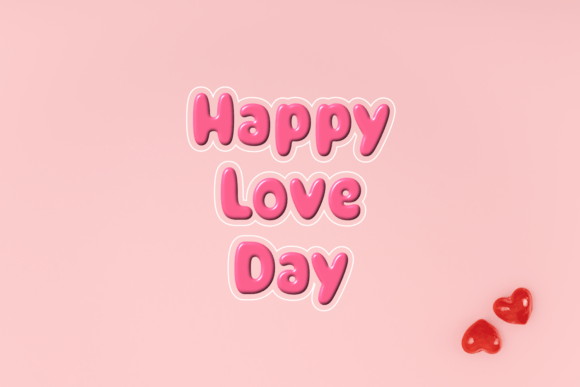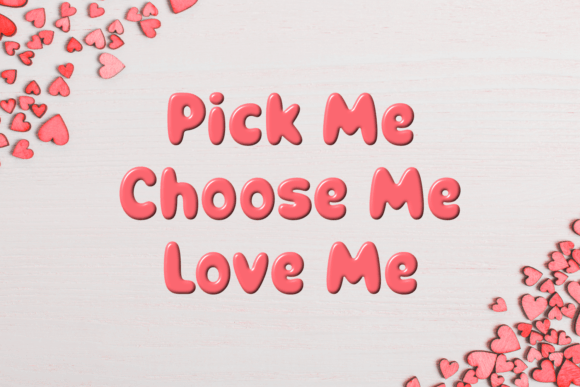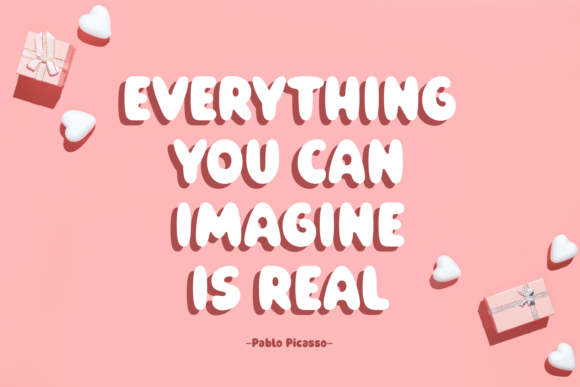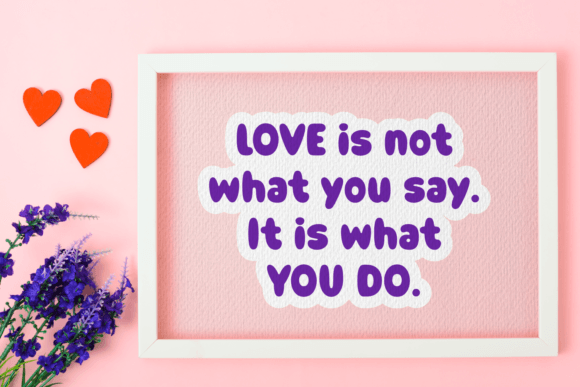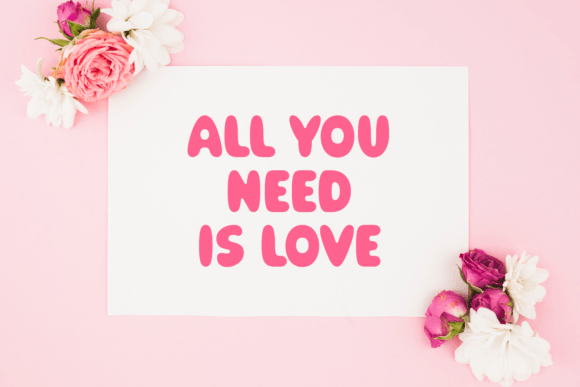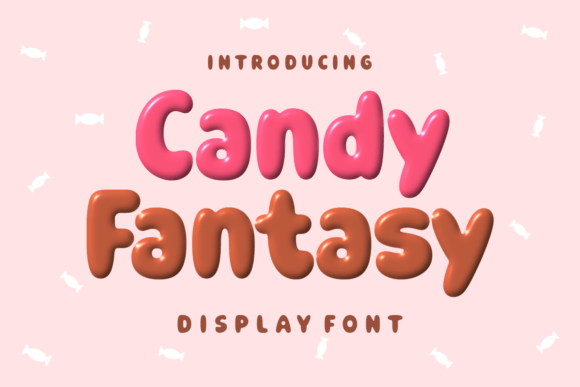
Candy Fantasy Font: Add a Sweet Touch to Your Designs
Are you looking for a font that can add a playful and charming touch to your designs? Look no further than the Candy Fantasy Font! This delightful display font is perfect for creating eye-catching headlines, invitations, and creative designs that are sure to capture the attention of your audience. In this article, we’ll take a closer look at the Candy Fantasy Font, its features, and how you can use it to add a sprinkle of cuteness to your projects.
What is Candy Fantasy Font?
Candy Fantasy is a delightful and adorable display font that is designed to add a sweet touch to any project. With its playful design and charming details, this font is perfect for creating whimsical and charming designs that are sure to delight your audience. The font features a range of sweet and colorful characters, including letters, numbers, and punctuation marks, all designed to look like they’re made of candy.
Features of Candy Fantasy Font
The Candy Fantasy Font has a range of features that make it perfect for designers and crafters. Some of its key features include:
- Playful Design: The font features a playful design with charming details that are sure to capture the attention of your audience.
- Delightful Characters: The font includes a range of delightful characters, including letters, numbers, and punctuation marks, all designed to look like they’re made of candy.
- Easy to Read: Despite its playful design, the font is easy to read, making it perfect for use in headlines, invitations, and other designs.
- Versatile: The font is versatile and can be used in a range of designs, from children’s party invitations to branding and packaging.
How to Use Candy Fantasy Font
The Candy Fantasy Font is easy to use and can be incorporated into a range of designs. Here are some ideas for using the font:
- Headlines: Use the font to create eye-catching headlines for your blog posts, articles, or social media posts.
- Invitations: Create whimsical and charming invitations for children’s parties, baby showers, or other special events.
- Branding and Packaging: Use the font to add a playful touch to your branding and packaging, perfect for businesses that want to appeal to a younger audience.
- Creative Designs: Use the font to create creative designs, such as posters, flyers, or brochures, that are sure to capture the attention of your audience.
Benefits of Using Candy Fantasy Font
There are many benefits to using the Candy Fantasy Font in your designs. Some of the key benefits include:
- Adds a Playful Touch: The font adds a playful touch to your designs, making them more engaging and fun.
- Perfect for Children’s Designs: The font is perfect for use in children’s designs, such as party invitations, children’s books, or educational materials.
- Increases Engagement: The font’s playful design and charming details are sure to increase engagement and capture the attention of your audience.
- Easy to Read: The font is easy to read, making it perfect for use in headlines, invitations, and other designs.
In conclusion, the Candy Fantasy Font is a delightful and adorable display font that adds a sweet touch to any project. With its playful design and charming details, this font is perfect for creating eye-catching headlines, invitations, and creative designs. Whether you’re a designer, crafter, or business owner, the Candy Fantasy Font is a great addition to your font collection. So why not give it a try and add a sprinkle of cuteness to your projects?
Tips for Using Candy Fantasy Font
Here are some tips for using the Candy Fantasy Font:
- Use it Sparingly: Use the font sparingly to avoid overwhelming your design. It’s perfect for headlines and titles, but may not be suitable for body text.
- Pair it with Other Fonts: Pair the font with other fonts to create a unique and visually appealing design.
By following these tips and using the Candy Fantasy Font in your designs, you can add a playful and charming touch that is sure to delight your audience.